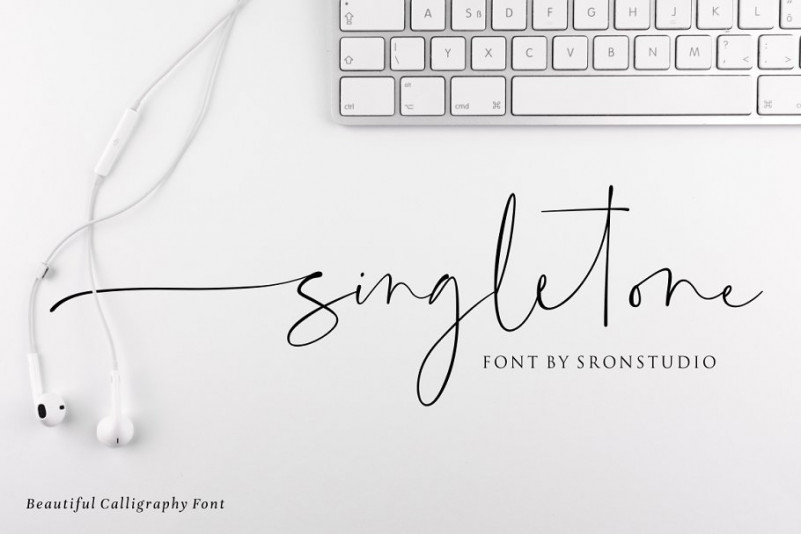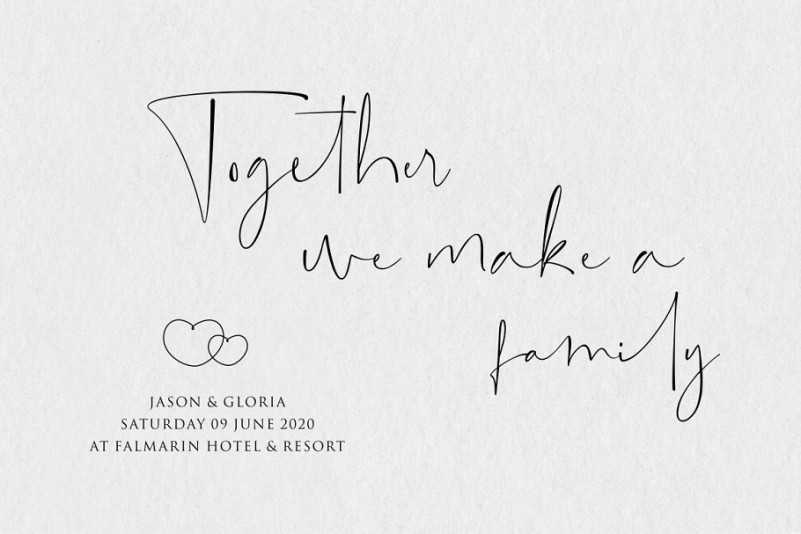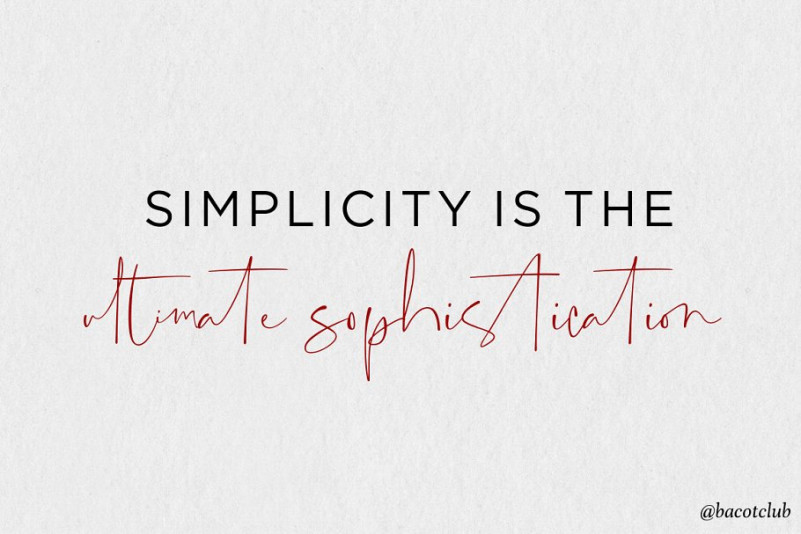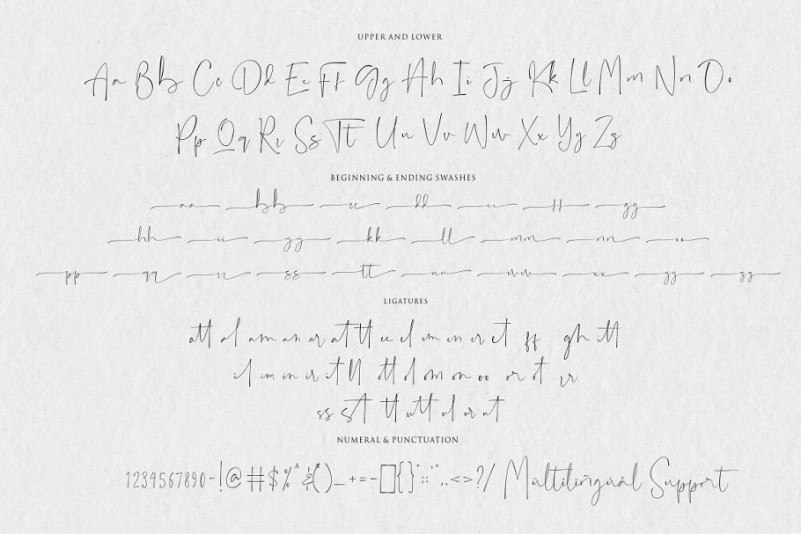
Singletone Signature Font
Introducing a beautiful handwritten font. It’s a wildly flamboyant handwritten script, designed to stand out from the crowd. An avant-garde attitude make it perfect for a completely natural and unique brand look. It is called Singletone Font. It’s a beautiful calligraphy font perfect for branding, invitation, stationery, wedding designs, social media posts, advertisements, product packaging, product designs, label, photography, watermark, special events or anything.